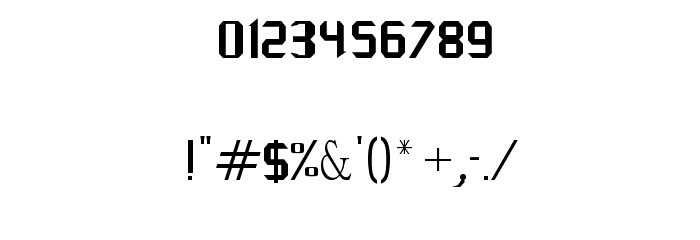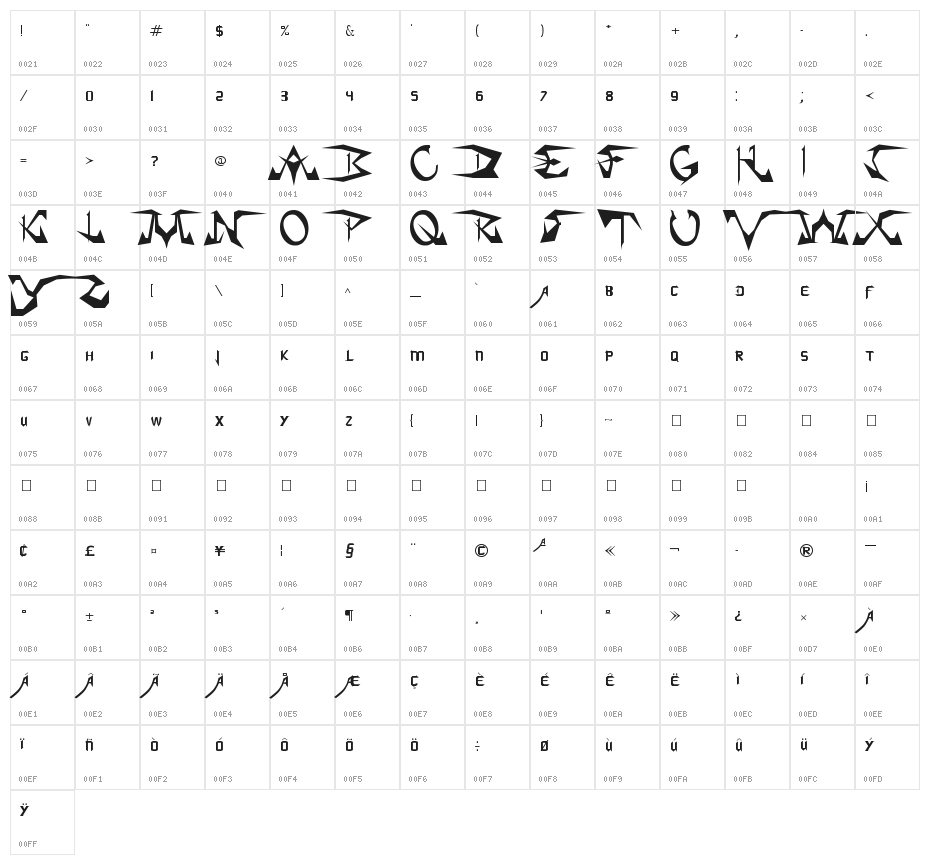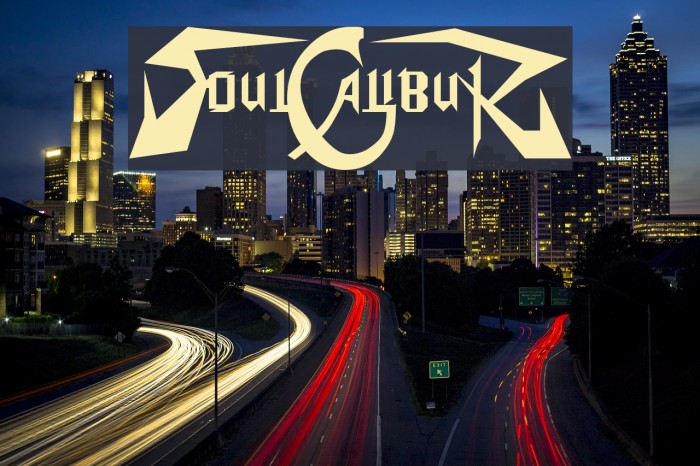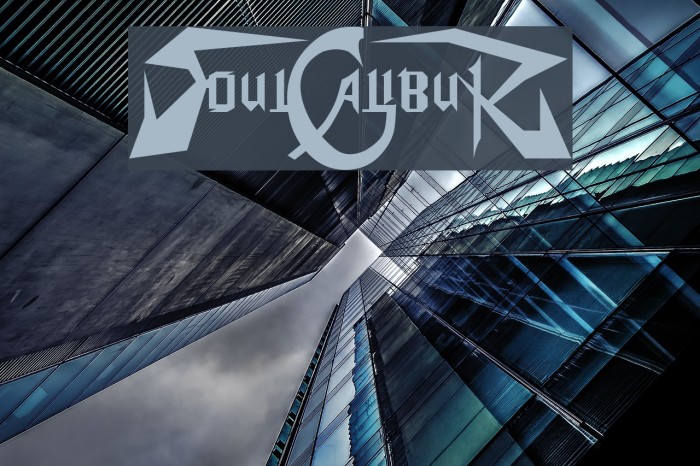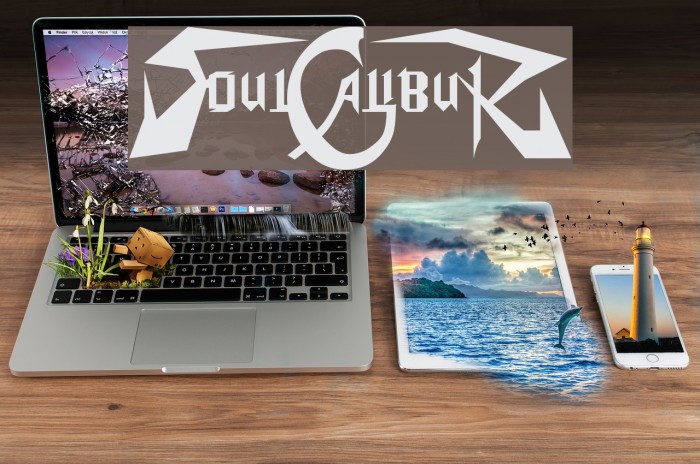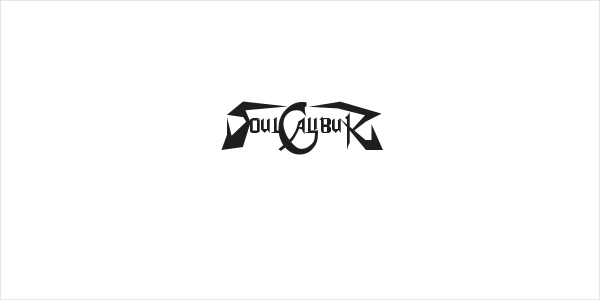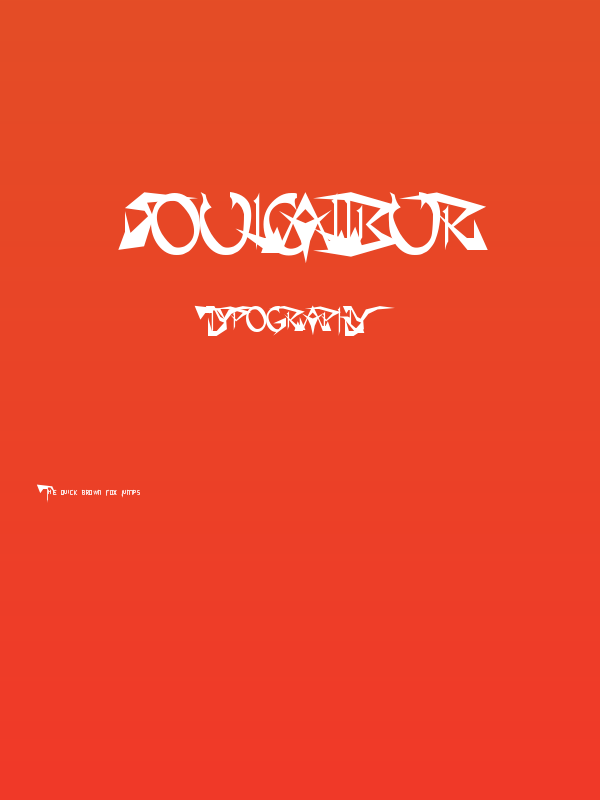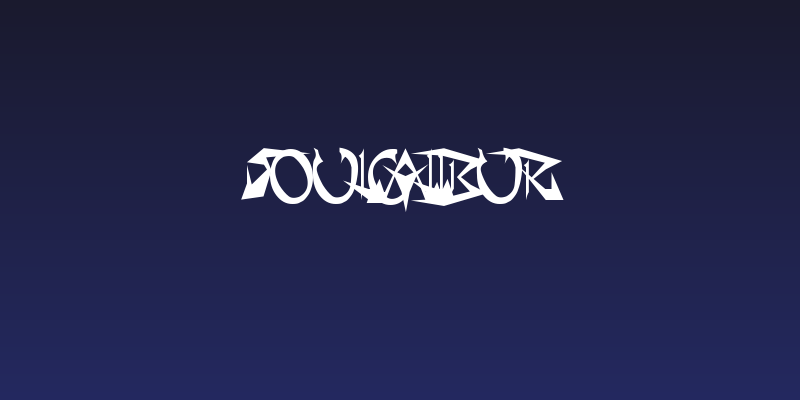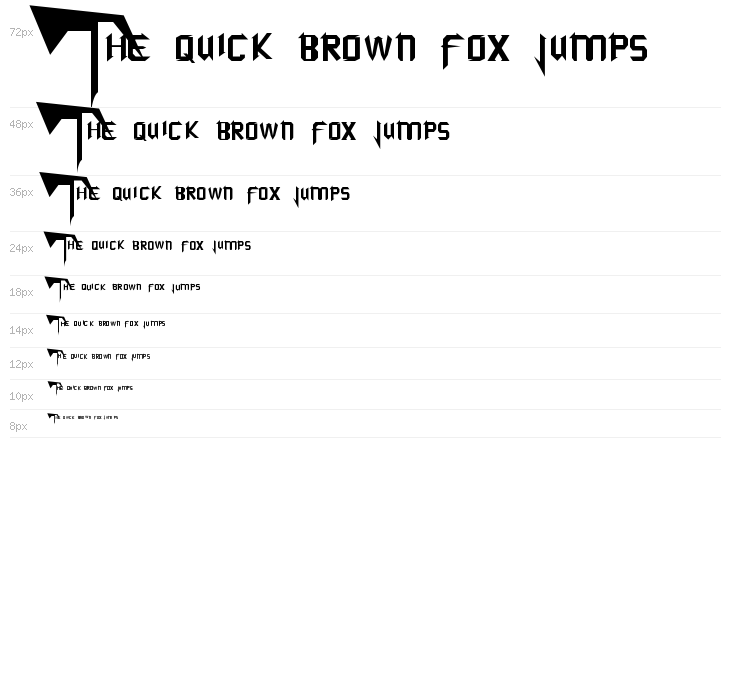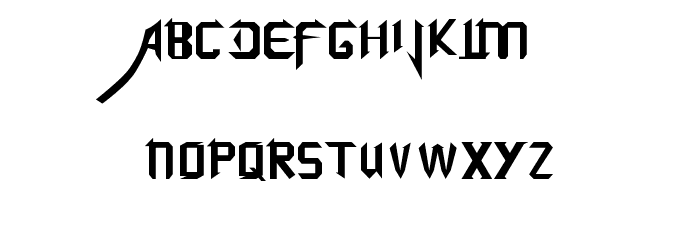
SoulCalibuR Font
SoulCalibuR Description
This font features a bold and striking design with sharp, angular edges and a distinctly aggressive style. The uppercase letters are particularly dramatic, with exaggerated points and a sense of movement that suggests energy and power. The lowercase letters maintain this dynamic style but are slightly more restrained, offering a balance to the overall aesthetic. Numbers and special characters are consistent with the font's bold and edgy theme, making it suitable for projects that require a strong visual impact. The font's unique style makes it ideal for use in gaming, fantasy themes, or any project that seeks to convey a sense of action and intensity.
| Proposed Projects | Ideal for gaming titles, fantasy-themed posters, action movie graphics, and edgy branding projects. |